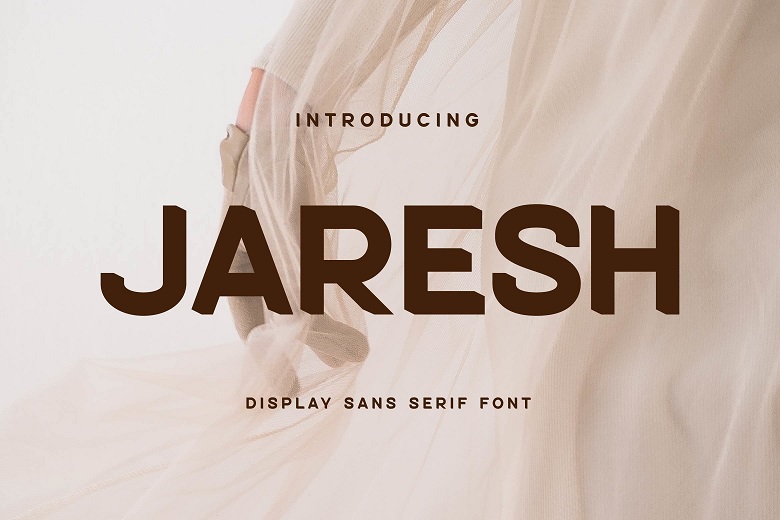
Jaresh Font
Jaresh Sans Font Typeface created based on the well-known minimalistic logo suitable for the processes of designing templates, brochures, videos, advertisement branding, logos, invitation cards, layout design, elegant crafting, beauty design and others.